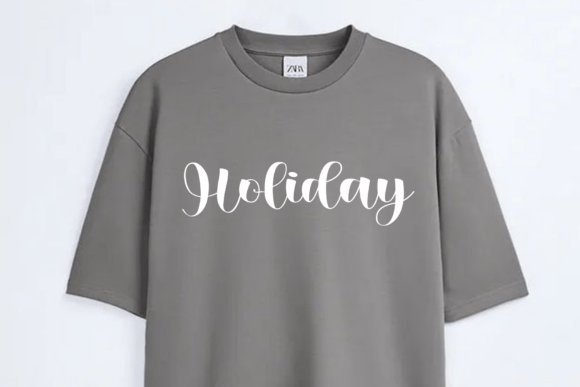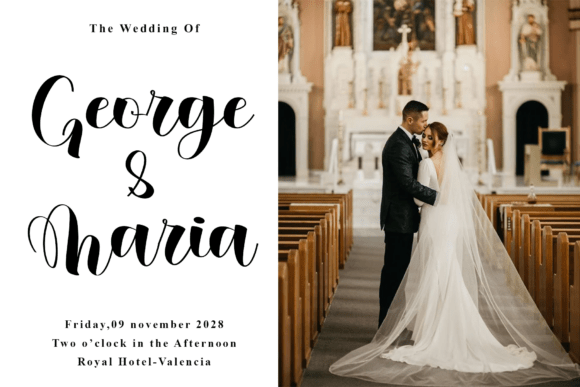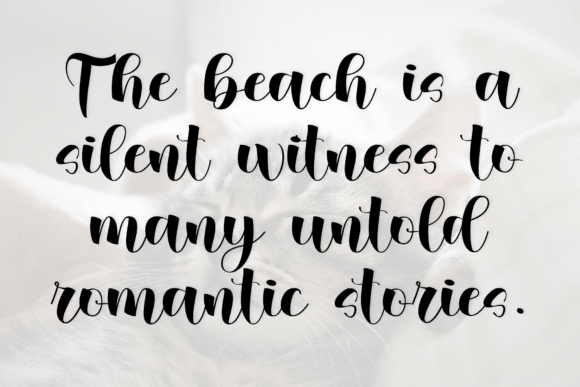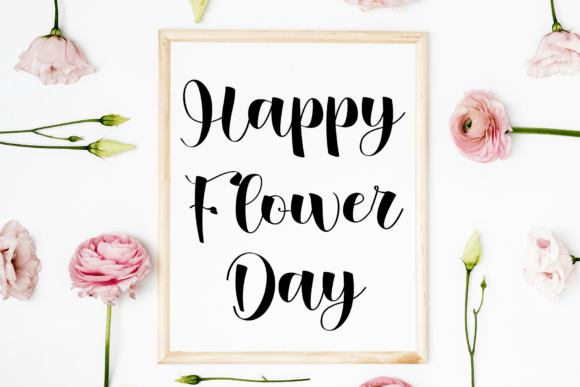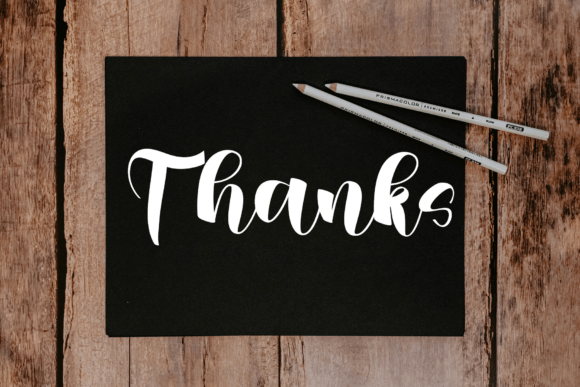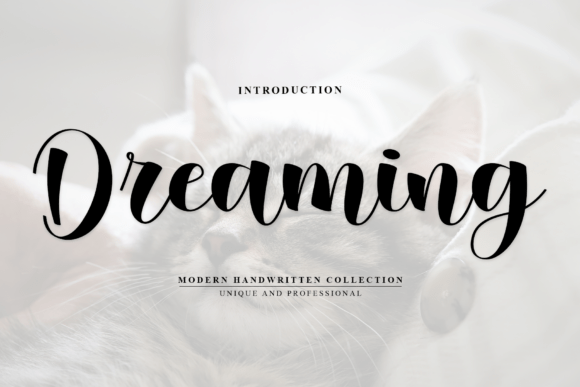
Dreaming Font: Elevate Your Designs with Elegant Handwritten Style
Are you tired of using the same old fonts in your designs? Do you want to add a personal and stylish touch to your invitations, logos, and social media posts? Look no further than the Dreaming Font, a beautiful handwritten font with a natural, flowing style that is sure to elevate your designs to the next level.
What is Dreaming Font?
Dreaming Font is a stunning handwritten font that boasts a elegant cursive writing style. Its natural, flowing lines and curves give it a unique and sophisticated look that is perfect for designers and crafters who want to add a touch of elegance to their work.
Key Features of Dreaming Font
- Natural and Flowing Style: Dreaming Font has a natural, flowing style that mimics elegant cursive writing.
- Handwritten with Love: Each letter is carefully crafted by hand to give the font a personal and unique touch.
- Perfect for Invitations and Logos: Dreaming Font is ideal for creating beautiful invitations, logos, and social media posts that require a touch of elegance.
- Easy to Read and Write: The font is clear and legible, making it easy to read and write.
Why Choose Dreaming Font?
There are many reasons why designers and crafters choose Dreaming Font for their projects. Here are a few:
- Adds a Personal Touch: Dreaming Font adds a personal and stylish touch to any design, making it perfect for invitations, logos, and social media posts.
- Versatile: The font is versatile and can be used for a variety of projects, from formal events to casual social media posts.
- Unique and Sophisticated: Dreaming Font has a unique and sophisticated look that sets it apart from other fonts.
How to Use Dreaming Font
Using Dreaming Font is easy. Here are a few tips:
- Pair it with Other Fonts: Pair Dreaming Font with other fonts to create a unique and stylish look.
- Use it for Headings and Titles: Use Dreaming Font for headings and titles to add a touch of elegance to your design.
Who Can Benefit from Dreaming Font?
Dreaming Font is perfect for:
- Graphic Designers: Graphic designers can use Dreaming Font to create stunning invitations, logos, and social media posts.
- Crafters: Crafters can use Dreaming Font to add a personal touch to their handmade projects.
- Small Business Owners: Small business owners can use Dreaming Font to create professional and stylish branding materials.
In conclusion, Dreaming Font is a beautiful handwritten font that can elevate your designs to the next level. Its natural, flowing style and elegant cursive writing make it perfect for adding a personal and stylish touch to invitations, logos, and social media posts. Whether you’re a graphic designer, crafter, or small business owner, Dreaming Font is a great choice for anyone looking to add a touch of elegance to their work.